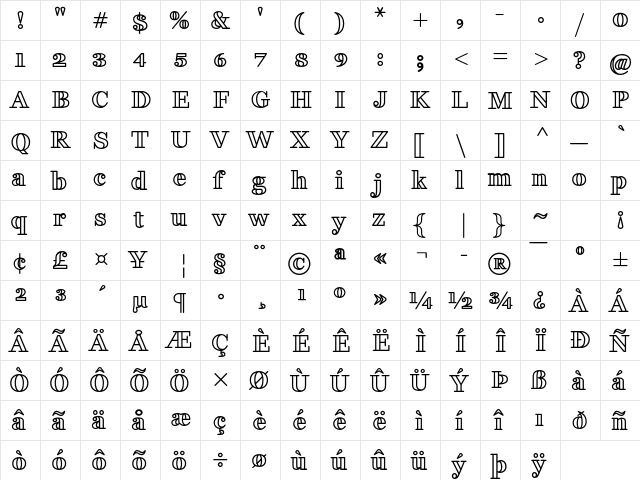
Fakedes Outline Bold
| Foundry | Cyril Mikhailov |
| Designer | Cyril Mikhailov |
Design Context for Fakedes Outline Typeface
Fakedes Outline is built around its visual character rather than neutral utility — its distinctive forms are designed to make an impression at display sizes. Its bold stroke weight gives it real presence on the page.
Font Pairing: Pair with a clean neutral sans-serif for body copy to let Fakedes Outline's character lead without overwhelming the composition.
Pro Tip: Use Fakedes Outline exclusively at display sizes — it was designed to be seen, not read at length. Let a neutral companion handle body copy.